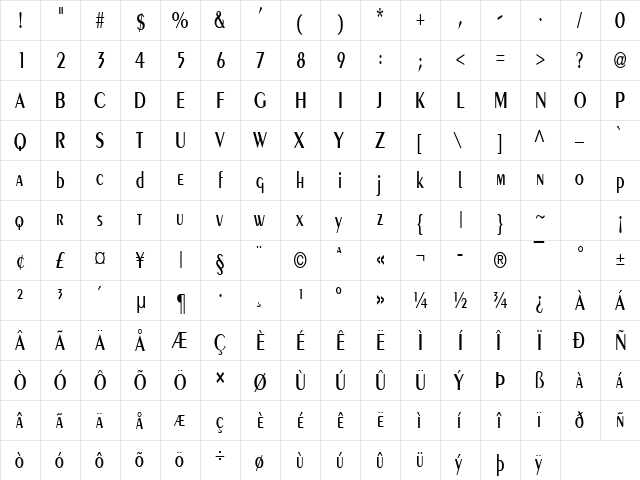
Pare Condensed Normal
Design Context for Pare Condensed Typeface
Pare Condensed is a composed and adaptable typeface that performs quietly and consistently across a wide range of design contexts. The condensed width makes it efficient for tight spaces without sacrificing legibility.